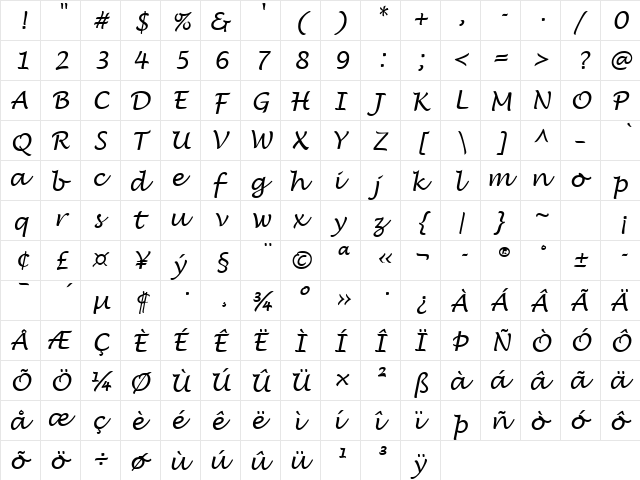
LANTULA Regular
Design Context for LANTULA Typeface
LANTULA is a composed and adaptable typeface that performs quietly and consistently across a wide range of design contexts.